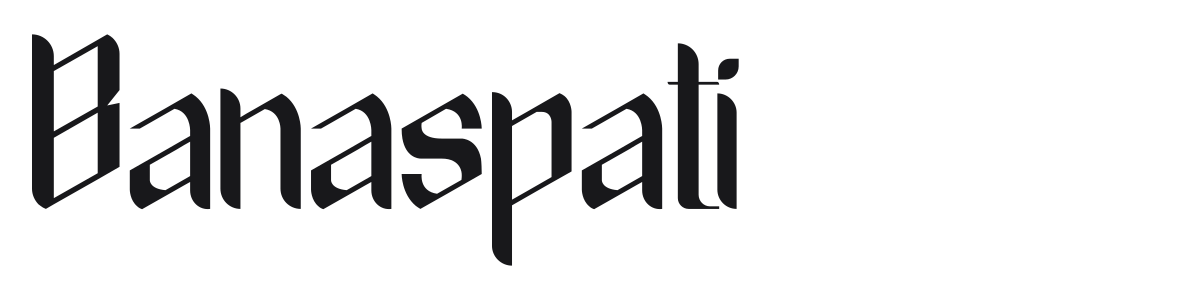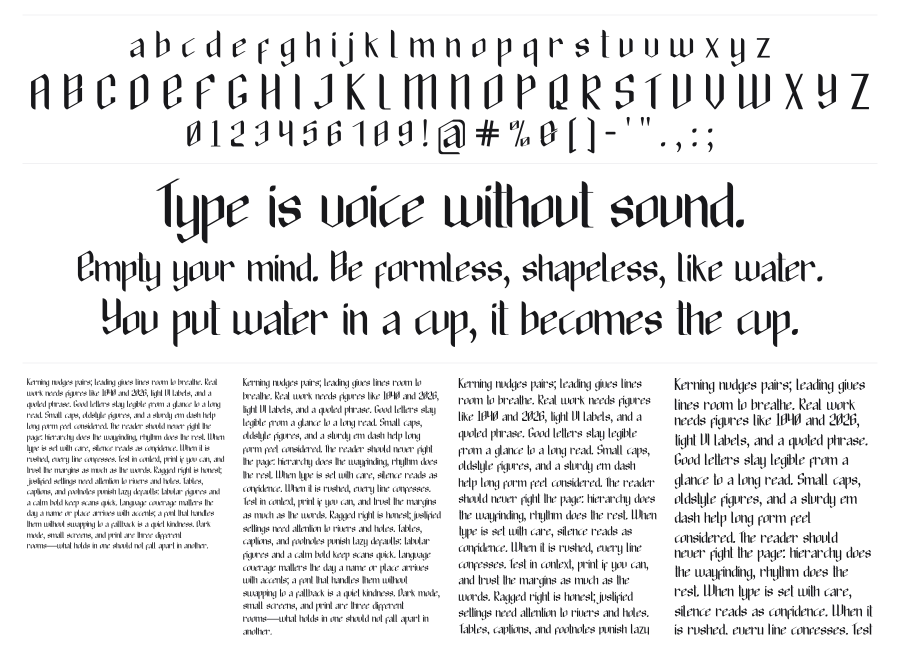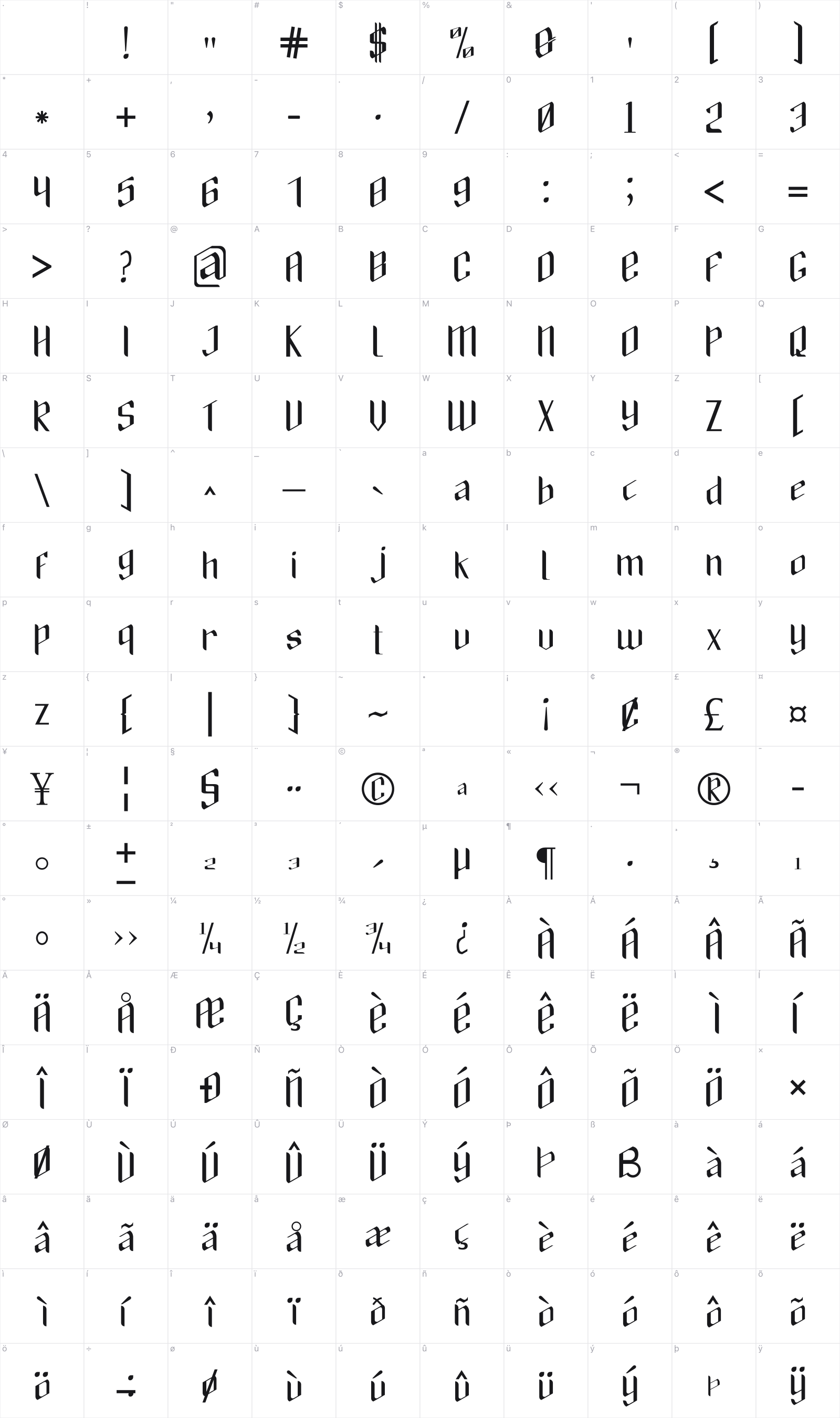
Banaspati
by Irfan Hidayat
Banaspati is a bold gothic display face that fuses blackletter structure with sharp, angular construction and no traditional serifs. Thick verticals contrast sharply with thin diagonal strokes, and pointed apexes at letter junctions give it an aggressive, almost blade-like quality. It carries a dark, dramatic energy that suits metal band logos, streetwear graphics, and editorial headlines.